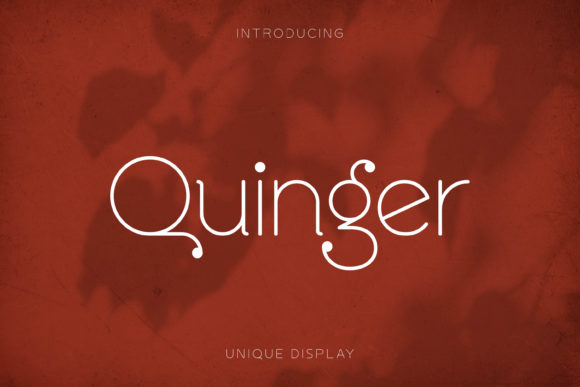
**Quinger Font: A Quintessential Font for Sophistication and Appeal**
Prepare to be mesmerized by Quinger Font, a typographic masterpiece that exudes elegance and sophistication. This captivating display font, meticulously crafted by the renowned almarkhatype, effortlessly elevates any design, leaving an unforgettable impression.
Quinger Font's modern aesthetic seamlessly complements a diverse range of design endeavors. Whether you're crafting corporate logos, branding materials, or creating captivating posters, this font empowers you to convey your message with unparalleled style and impact.
At its core, Quinger Font embodies a symphony of grace and luxury. Its refined curves and sharp edges effortlessly convey professionalism and prestige, while its stylish presence evokes a sense of sophistication and allure.
With Quinger Font at your disposal, you unlock a world of creative possibilities. Its versatile nature allows you to experiment with different styles and techniques, effortlessly creating designs that exude a timeless elegance.
**Unleash Your Creativity with Quinger Font**
Immerse yourself in the world of typography and let Quinger Font guide you towards design excellence. Its user-friendly nature makes it accessible to both seasoned designers and aspiring creatives alike.
Every stroke of Quinger Font is meticulously crafted to enhance readability and visual appeal. Its clean lines and balanced proportions ensure that your text remains legible, even at smaller sizes.
Whether you're a graphic designer, marketer, or simply passionate about creating visually stunning designs, Quinger Font is the perfect tool to elevate your projects to new heights of sophistication.
**Experience the Magic of Quinger Font**
Let Quinger Font be the cornerstone of your designs, guiding you towards a world of elegance and visual impact. Embrace its versatility and let your imagination soar to new heights.
**Quinger Font: The Epitome of Design Excellence**
Join the ranks of creative professionals who have discovered the magic of Quinger Font. Allow its sophisticated charm to captivate your audience and leave a lasting impression.
With Quinger Font by your side, you'll unlock a world of design possibilities and elevate your projects to the pinnacle of excellence.